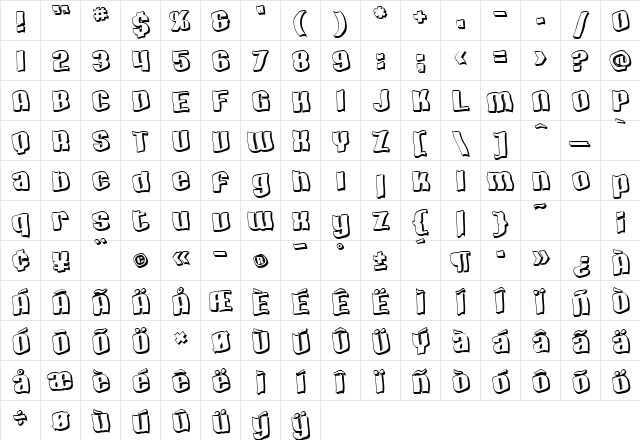
SF Hallucination Shadow Regular
SF Hallucination Shadow Family
Design Context for SF Hallucination Shadow
SF Hallucination Shadow is built around its visual character rather than neutral utility - its distinctive forms are designed to make an impression at display sizes.
Font Pairing: Pair with a clean neutral sans-serif for body copy to let SF Hallucination Shadow's character lead without overwhelming the composition.
Pro Tip: Use SF Hallucination Shadow exclusively at display sizes - it was designed to be seen, not read at length. Let a neutral companion handle body copy.